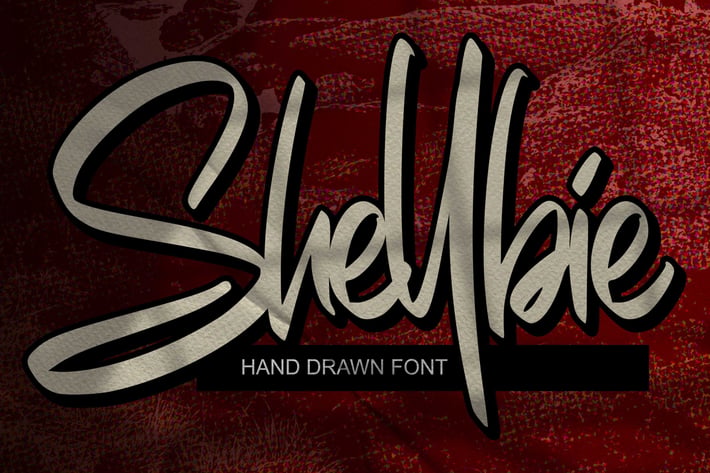
Shellbie_ Script Brush Font
Gassstype
Shellbie - Handwritten Brush font with a clean style and dramatic movement. Crafted manually with love and passion, This font is great for your next creative project such as logos, printed quotes, invitations, cards, product packaging, headers, Logotype, Letterhead, Poster, Label, and etc.
+ Ligature